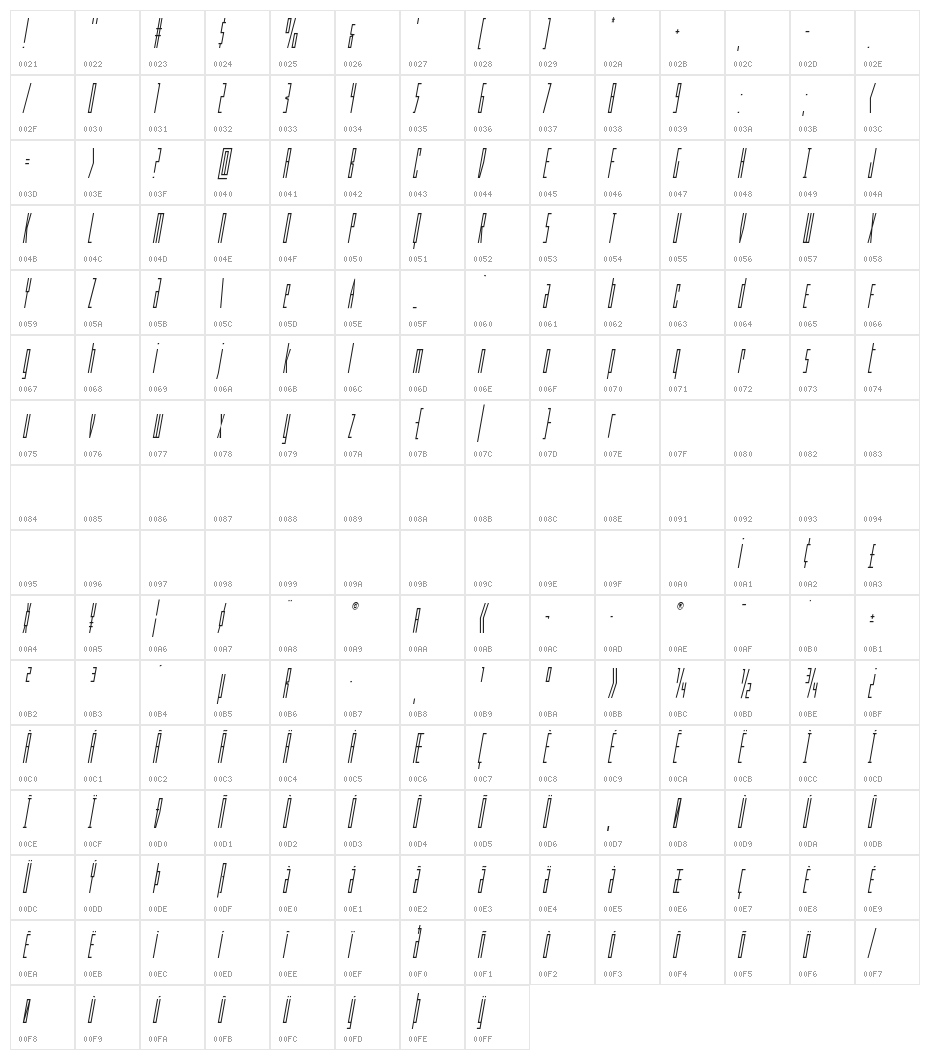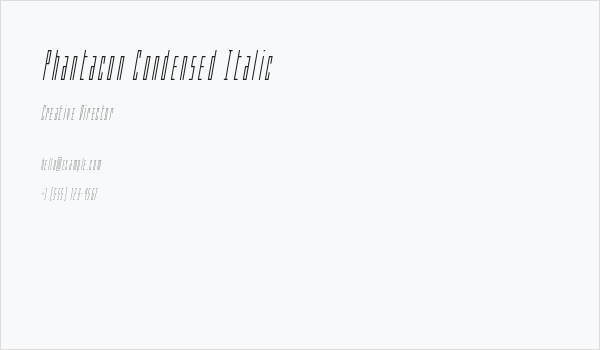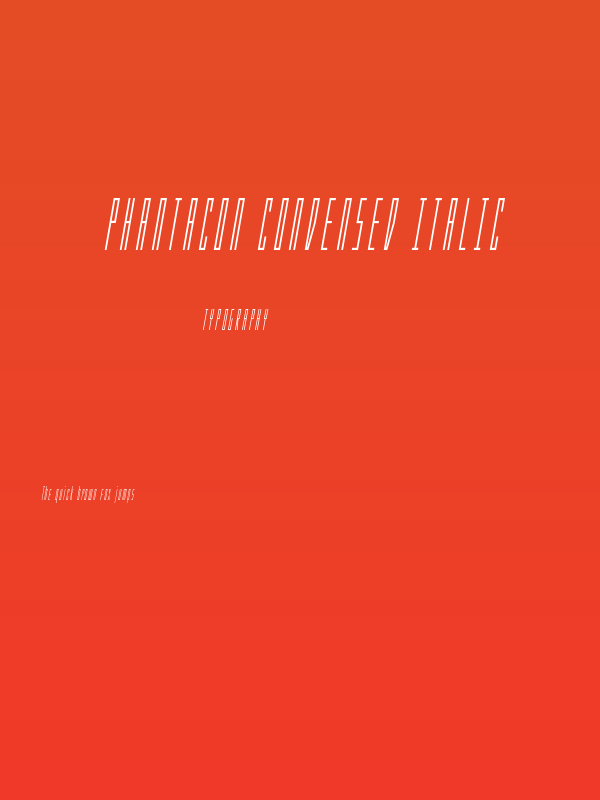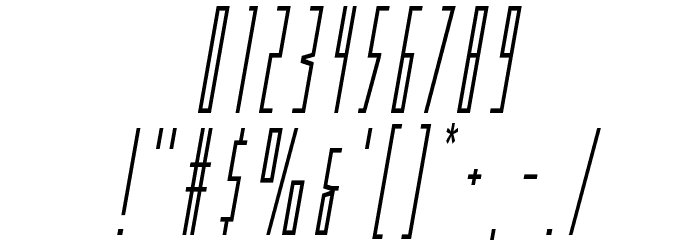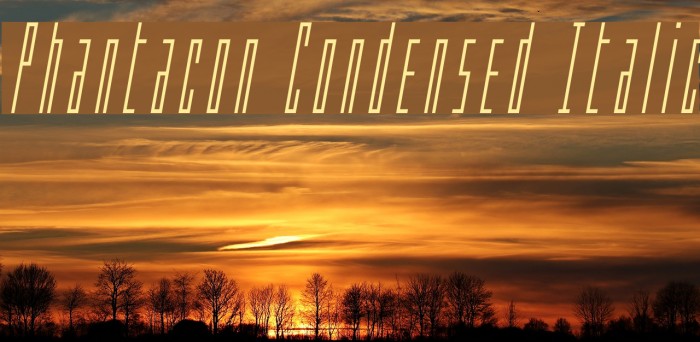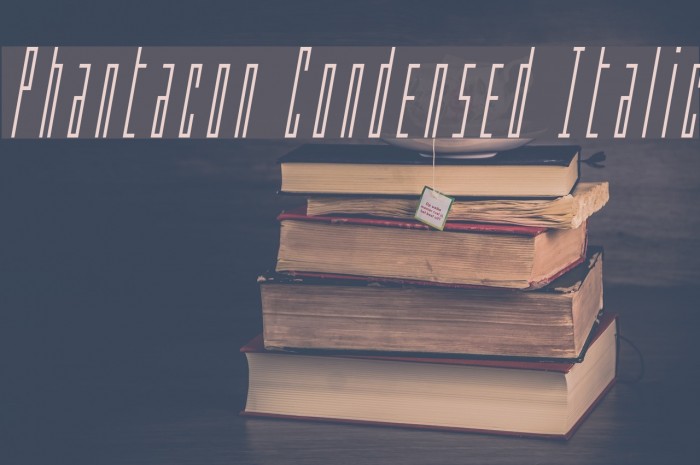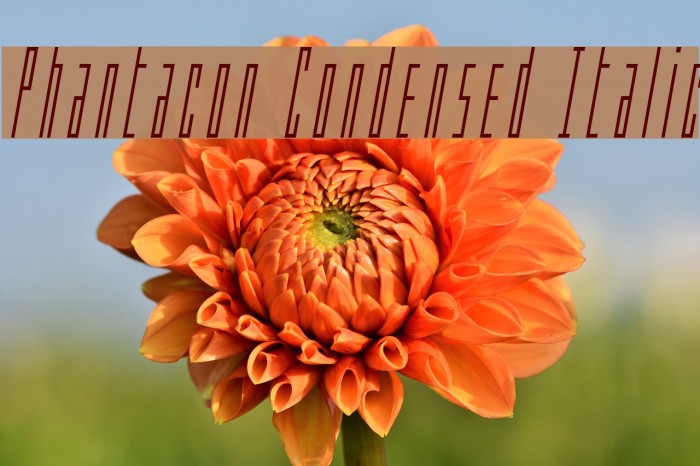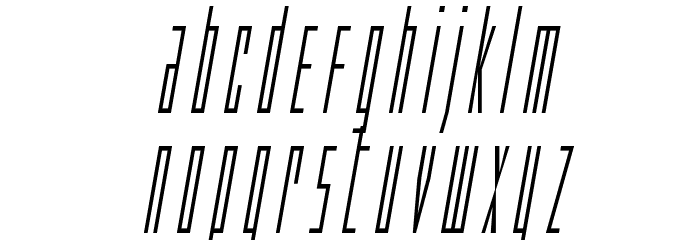
Phantacon Condensed Italic Font
Phantacon Condensed Italic Description
This font features a sleek, condensed design with a distinct italic slant, giving it a dynamic and modern appearance. The characters are elongated and narrow, creating a sense of elegance and sophistication. The strokes are uniform in thickness, contributing to a clean and streamlined look. The uppercase and lowercase letters maintain a consistent style, enhancing readability while preserving the font's unique character. The numerals and special characters are designed to match the overall aesthetic, ensuring a cohesive visual experience.
| Proposed Projects | Ideal for fashion magazines, modern branding, and dynamic poster designs. |